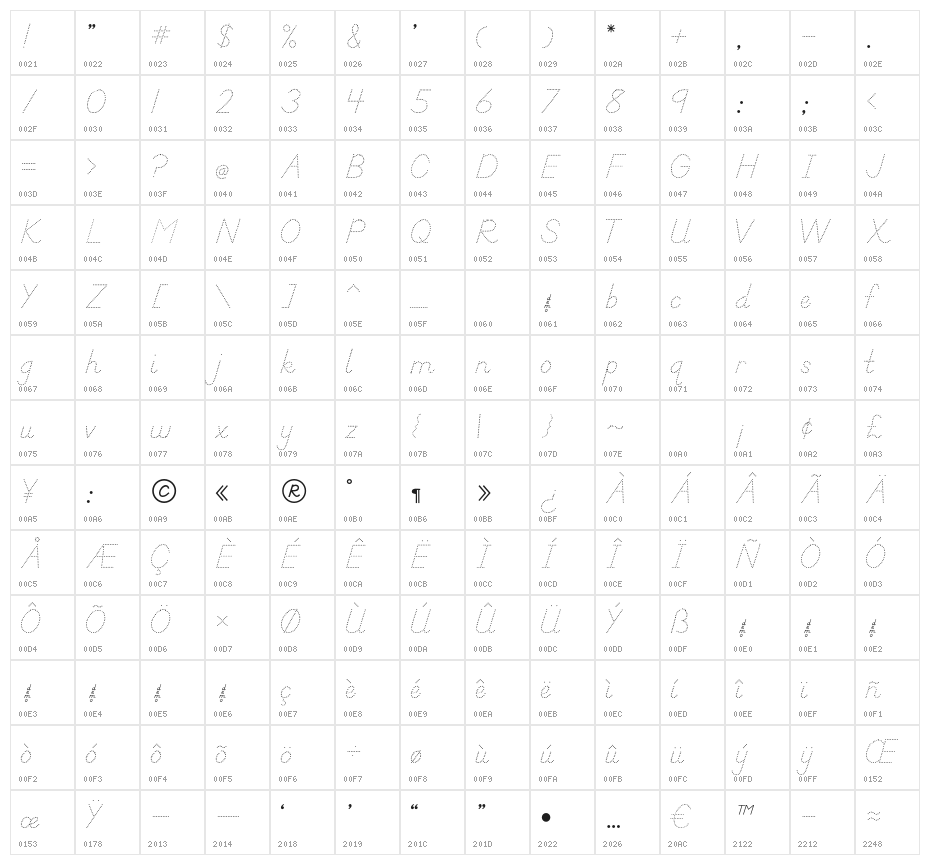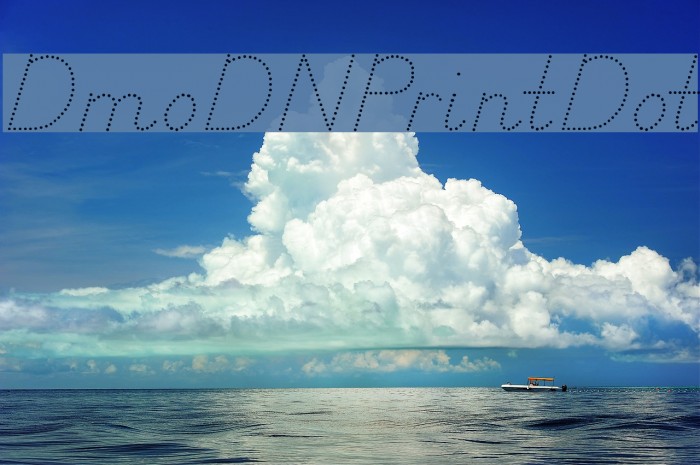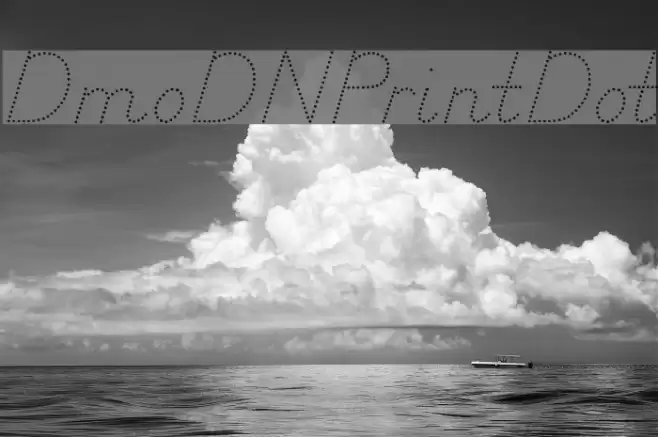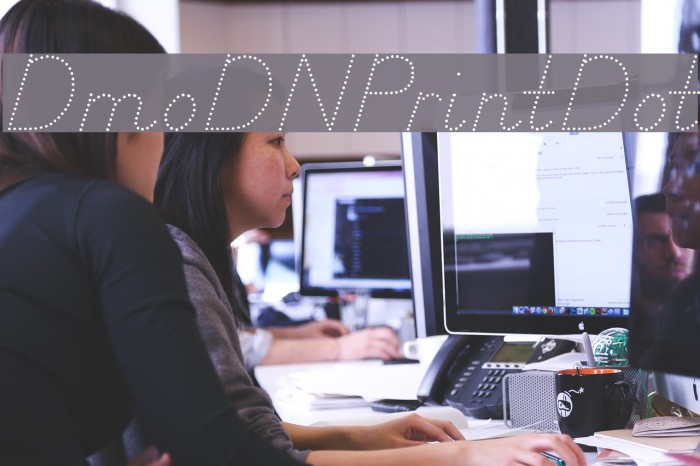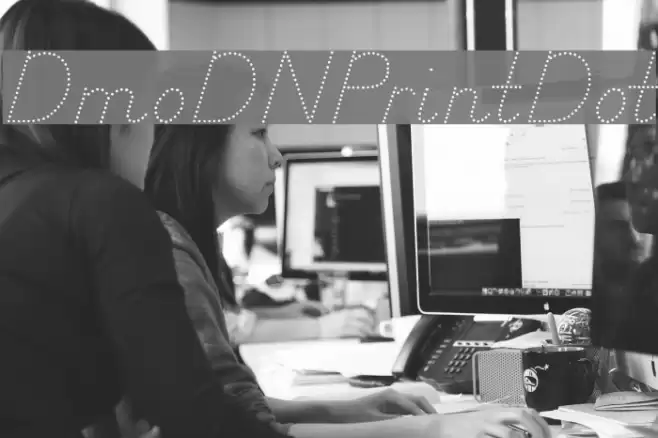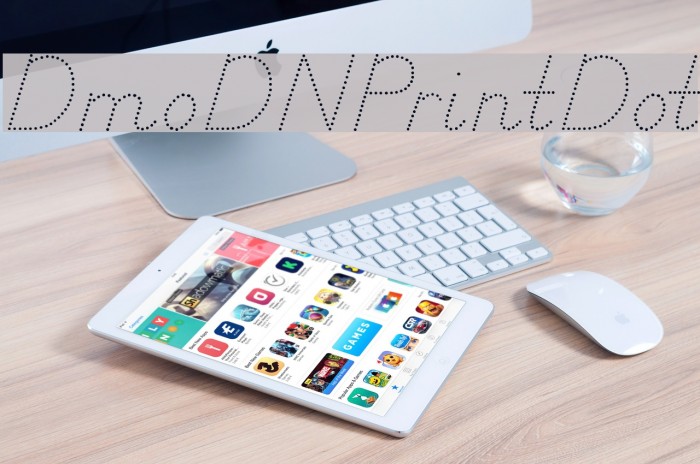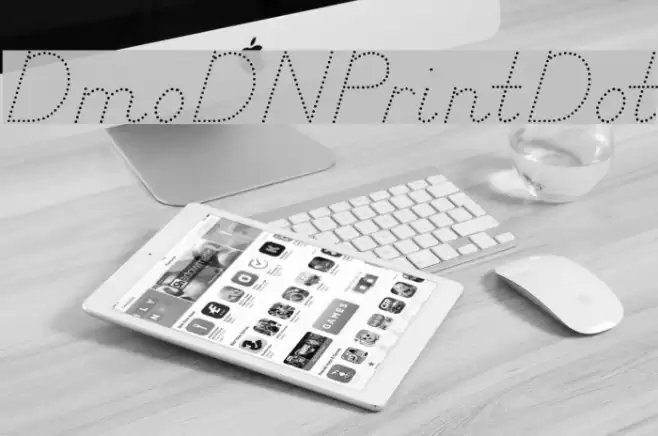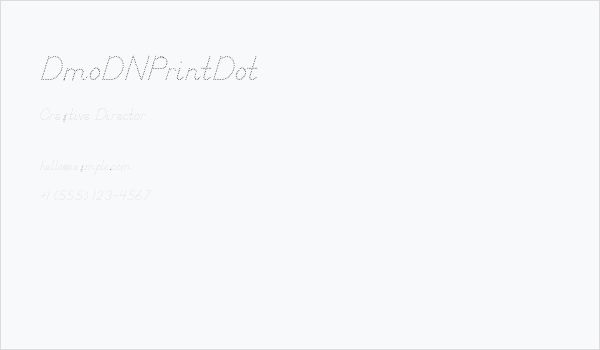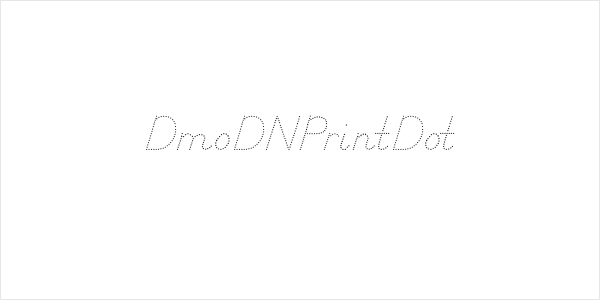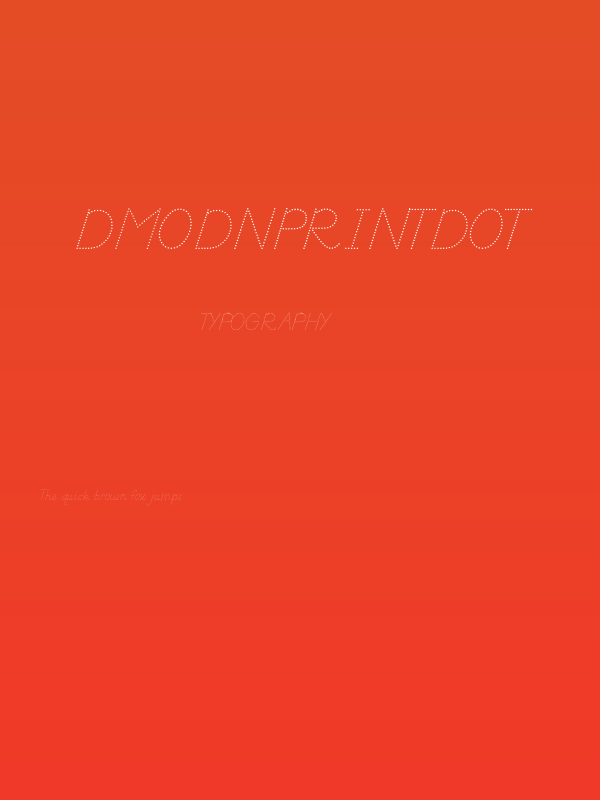
This font features a unique dotted style, where each character is composed of evenly spaced dots forming the outlines of letters and numbers. The uppercase letters are elegantly structured with a slight slant, giving a sense of movement and fluidity. The lowercase letters maintain a consistent style, with smooth curves and a connected script-like appearance. Numbers are clear and legible, following the same dotted pattern. Special characters are also included, maintaining the cohesive dotted theme. This font is visually striking and offers a playful yet sophisticated look, ideal for creative and decorative applications.
| Use Case | Logos, Invitations, Posters |
| Proposed Projects | Ideal for creative projects such as invitations, greeting cards, posters, and branding materials where a unique and decorative touch is desired. |